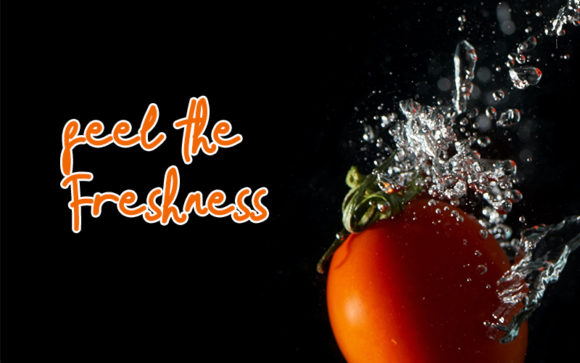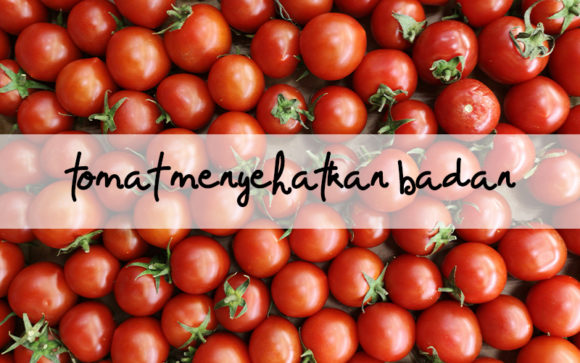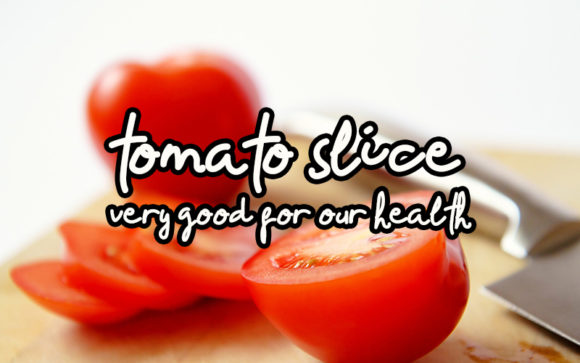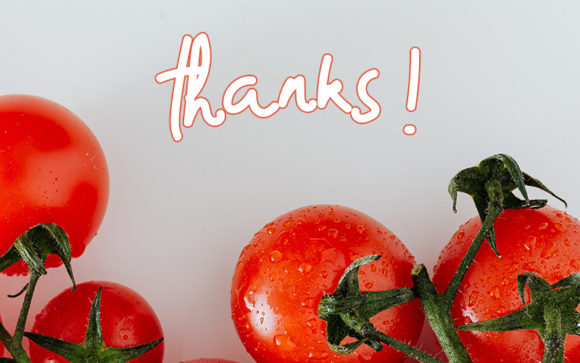
The Tomat Font
About The Tomat Font
The Tomat is a sweet and neat handwritten font. Its natural and unique style makes it incredibly fitting to a large pool of designs. The only limit is your imagination!